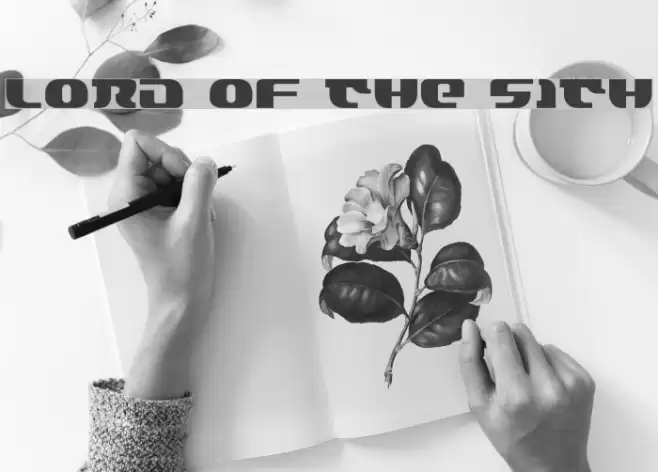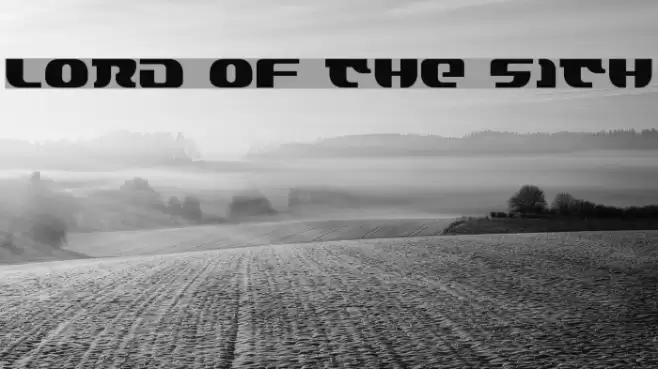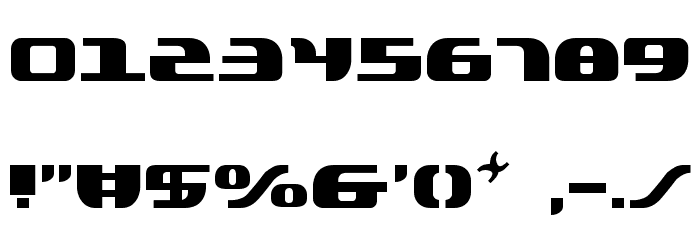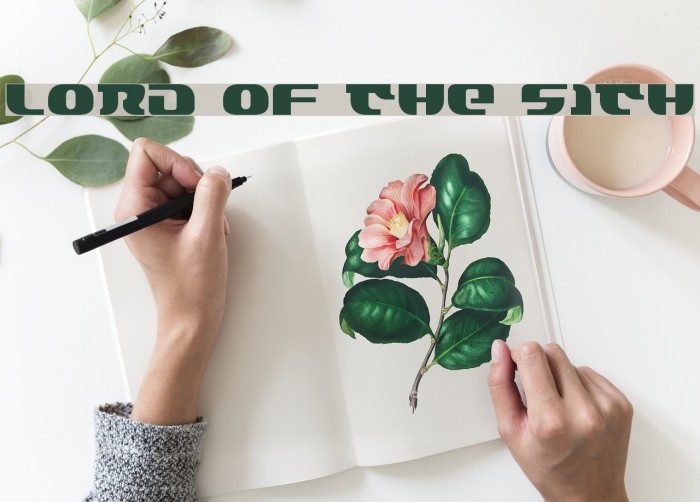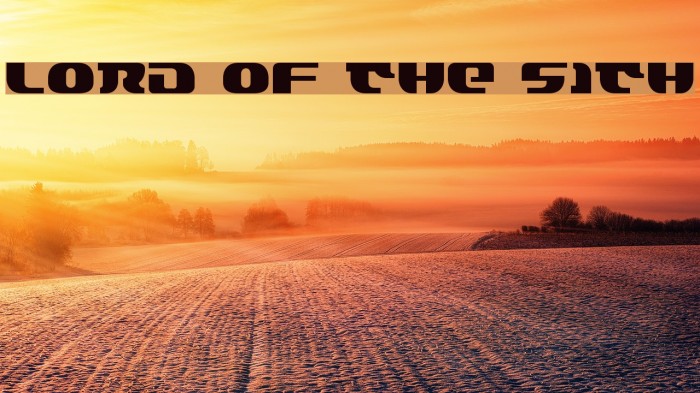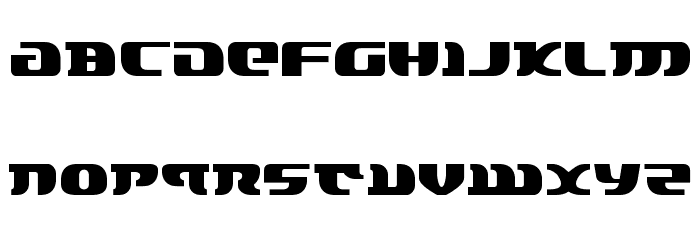
Lord of the Sith Font
Lord of the Sith Description
This font features a bold, futuristic design with strong geometric shapes and a distinct sci-fi aesthetic. The characters are wide and have a unique blocky appearance, with sharp angles and a consistent stroke weight throughout. The uppercase and lowercase letters maintain a uniform style, creating a cohesive look. Numbers and special characters are designed to match the boldness and angularity of the alphabet, making this font suitable for attention-grabbing designs.
A bold, futuristic font with geometric shapes and a sci-fi aesthetic from Script fonts.
- Proposed Projects: Ideal for sci-fi themed posters, video game titles, movie logos, and futuristic branding.
- Width: Expanded
- Overall Style: Futuristic